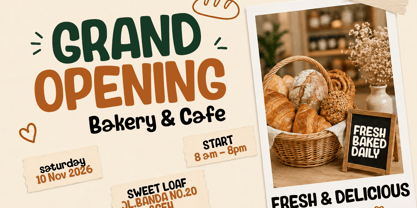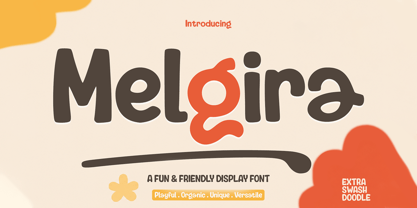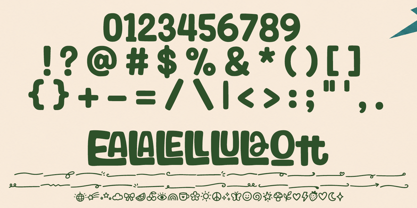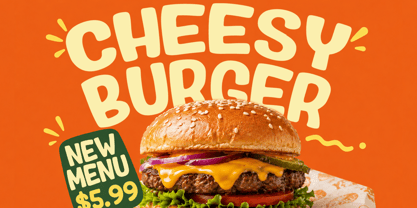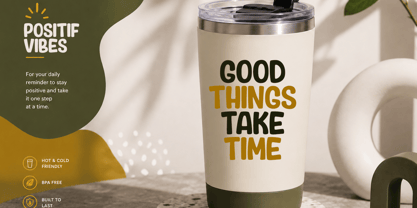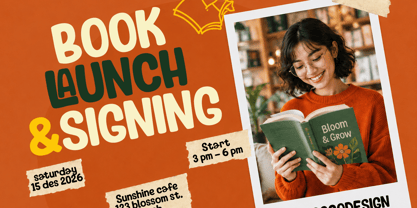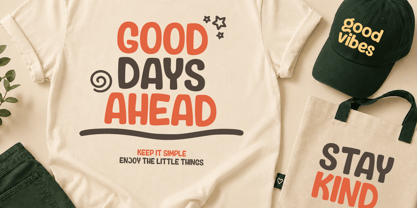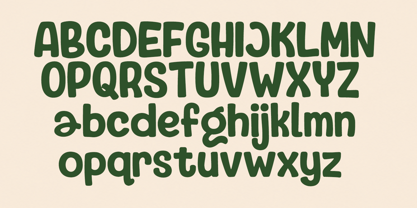
Melgira
by Cocodesign
The Melgira Font Family was designed by Muhammad Zaini and published by Cocodesign. Melgira contains 3 styles and family package options. More about this family
Melgira — Playful Display Font
Melgira is a bold and playful display font with soft, rounded, and organic letterforms that bring a cheerful handmade character to every design. Its expressive shapes and smooth curves create a fun, friendly, and eye-catching appearance while maintaining a strong and distinctive visual presence. Melgira is complemented by extra swashes and playful doodles, beautifully crafted to enhance the typography with more movement, charm, and creativity. The flowing swashes, decorative flourishes, and whimsical doodle elements make it easy to create unique and expressive compositions with a warm handmade feel. Melgira is a versatile choice for T-shirt and apparel designs, branding, logos, posters, packaging, labels, stickers, greeting cards, invitations, children's designs, social media graphics, headlines, and Digital projects. Bold, playful, organic, expressive, and full of character — Melgira is made to make every design stand out.